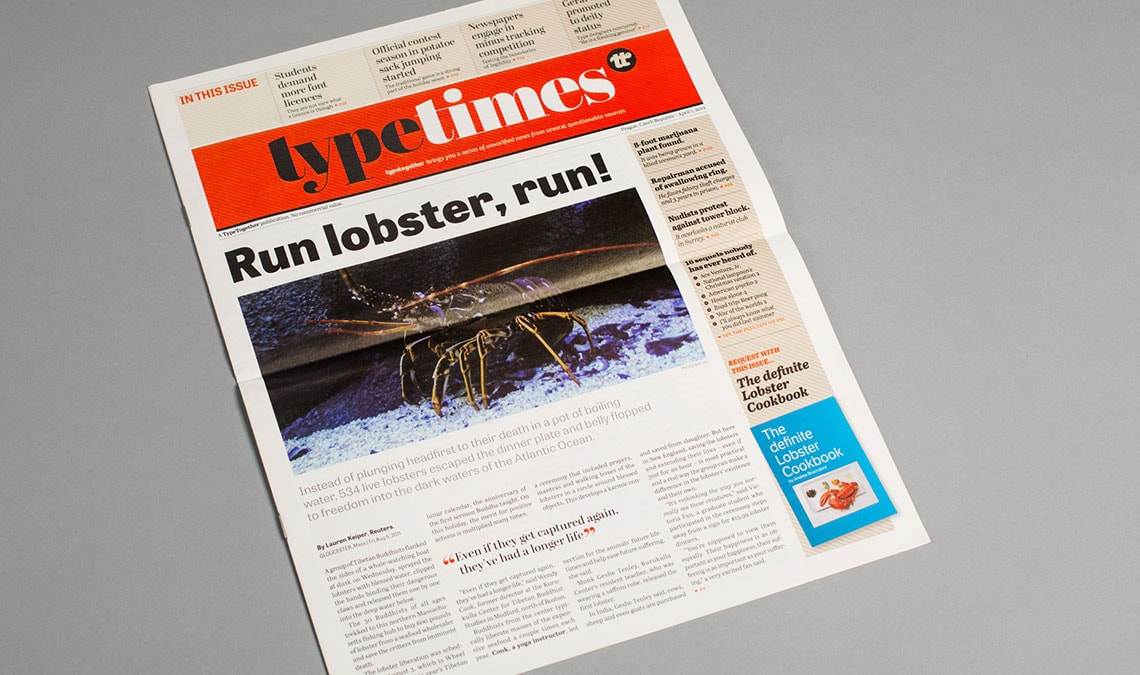
2012 typetimes specimen
What better than seeing type printed in its intended real environment; typetimes brings you our latest releases for ediotrial design. The fonts featured are Abril, Tablet Gothic, Coranto 2, Capitolium 2 and LFT Etica. The 28x36cm large specimen shows 4 different design spreads in newspaper/magazine providing samples of the fonts in different sizes and functions. Designed by Filip Blazek and printed by JPM tisk on improved newspaper paper, Viprint.